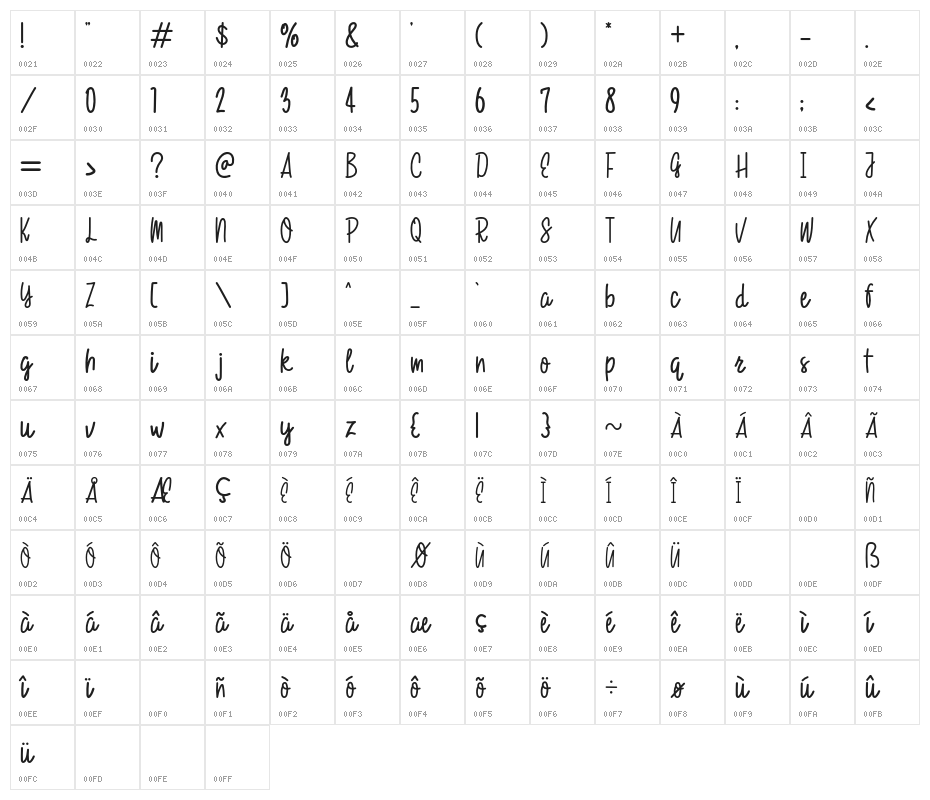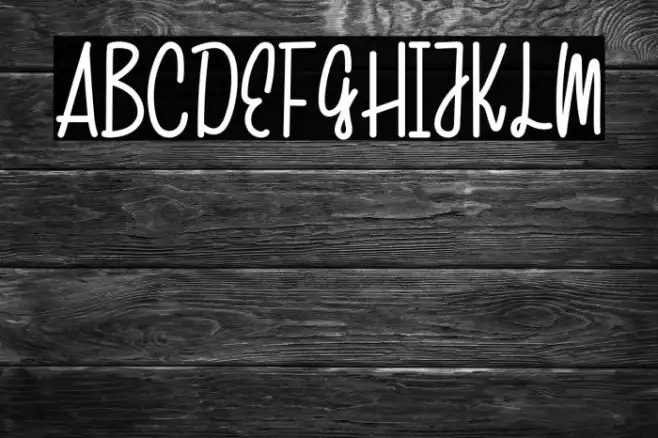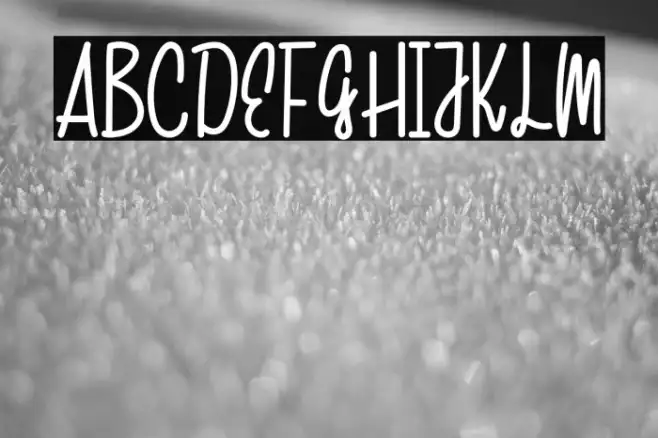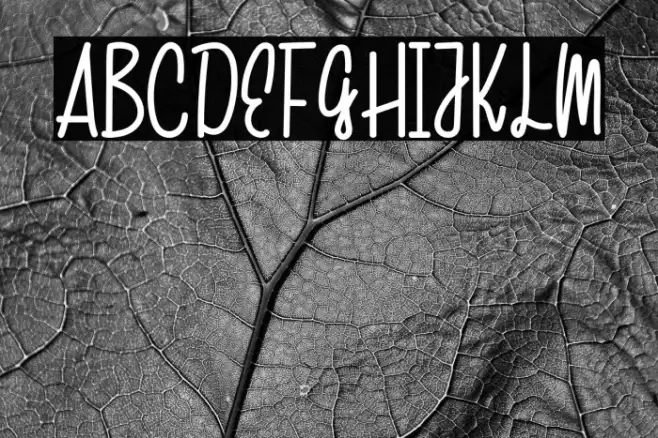
Love Today Font
Love Today Description
This playful and energetic font features a handwritten style with a casual and friendly appearance. The letters are slightly slanted, giving a dynamic and lively feel. The strokes are consistent in thickness, providing a uniform look across all characters. The uppercase letters are bold and prominent, while the lowercase letters maintain a smooth flow, enhancing readability. The numbers and special characters are designed to match the overall style, ensuring cohesion throughout. This font is perfect for projects that require a personal touch, such as invitations, greeting cards, or social media graphics.
| Overall Style | Casual and playful |
| Proposed Projects | Ideal for invitations, greeting cards, social media graphics, and personal branding. |